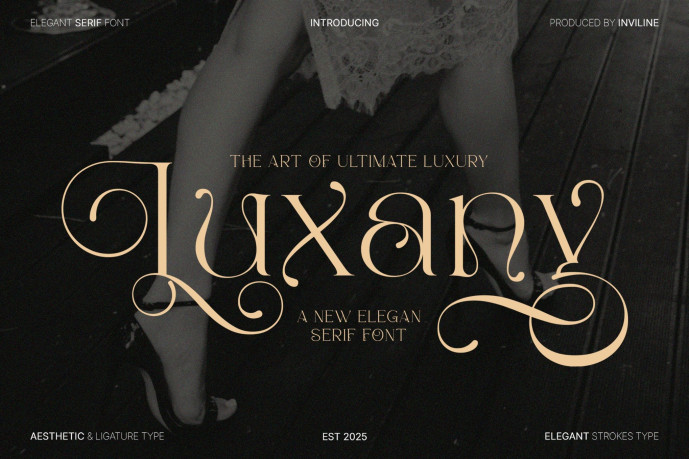
Luxany – Elegant Serif Font
Designer: Inviline
Luxany – Elegant Serif Font is a newly introduced elegant serif font. Its design emphasizes aesthetics and ligatures, featuring refined and elegant strokes. This font is suitable for design needs requiring a luxurious and sophisticated feel, such as premium branding, wedding invitations, or editorial design.
• Uppercase & Lowercase Characters: Fully designed for a complete typographic experience
• Numerals & Punctuation: All the numbers and punctuation marks you need for any design task
• Multilingual Support: Includes characters for multiple languages, ensuring global usability
• High-Quality Design: Each font is crafted with attention to detail, ensuring a polished and professional look